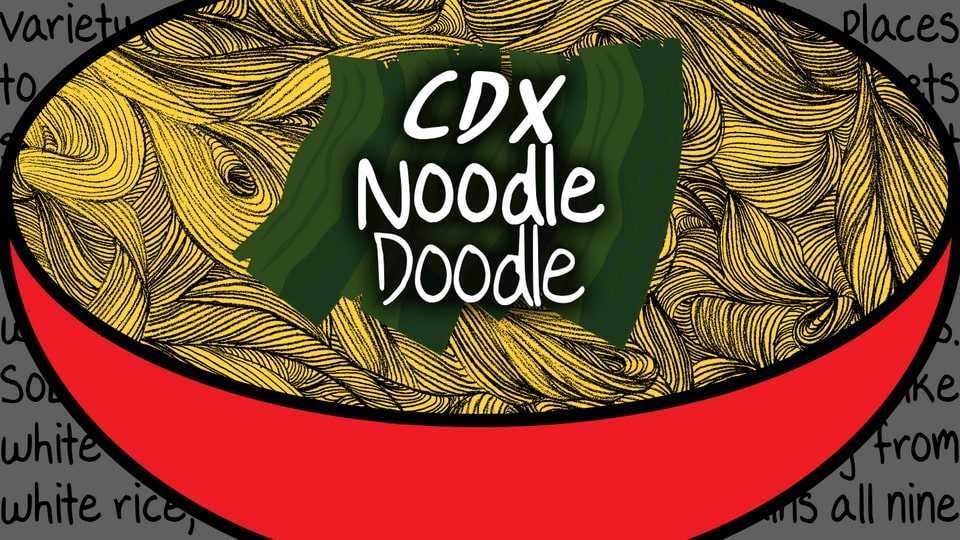
Download CDX Noodle Doodle font, a a super nice handwriting typeface to add a wonderful handmade look. Great for notes, quotes, art, display, and more.